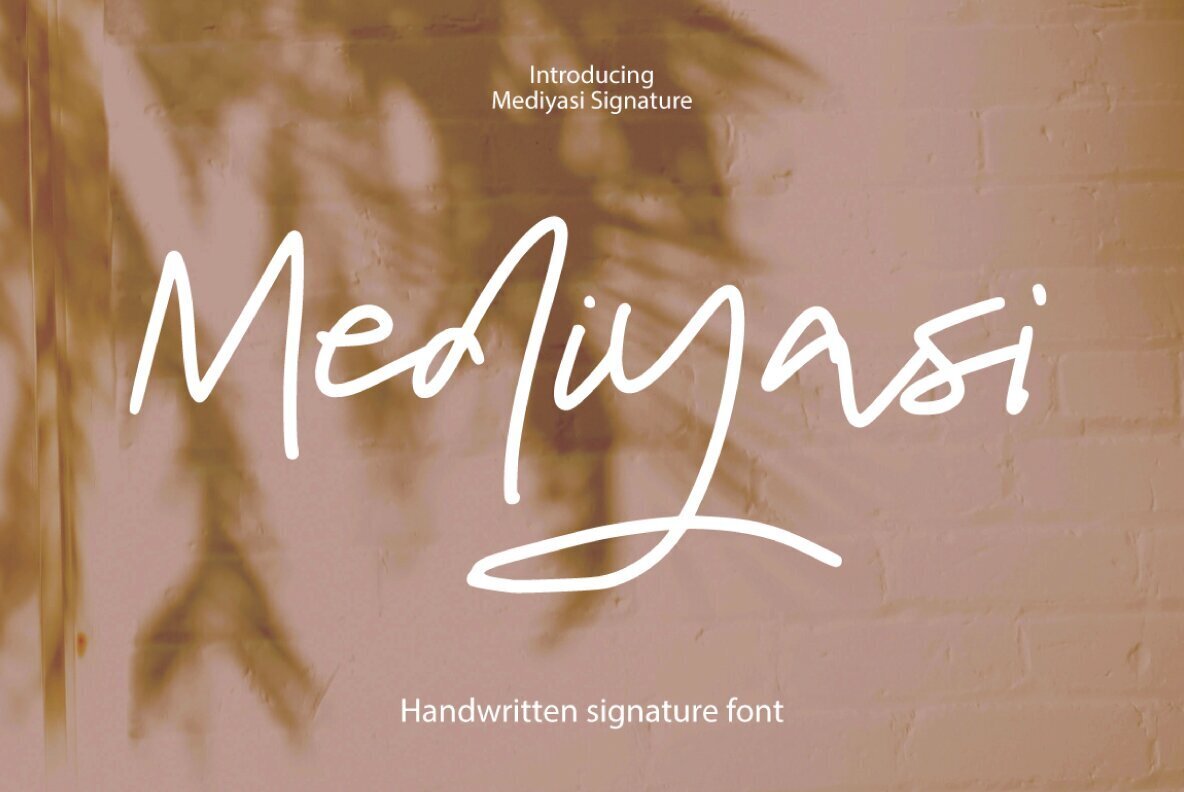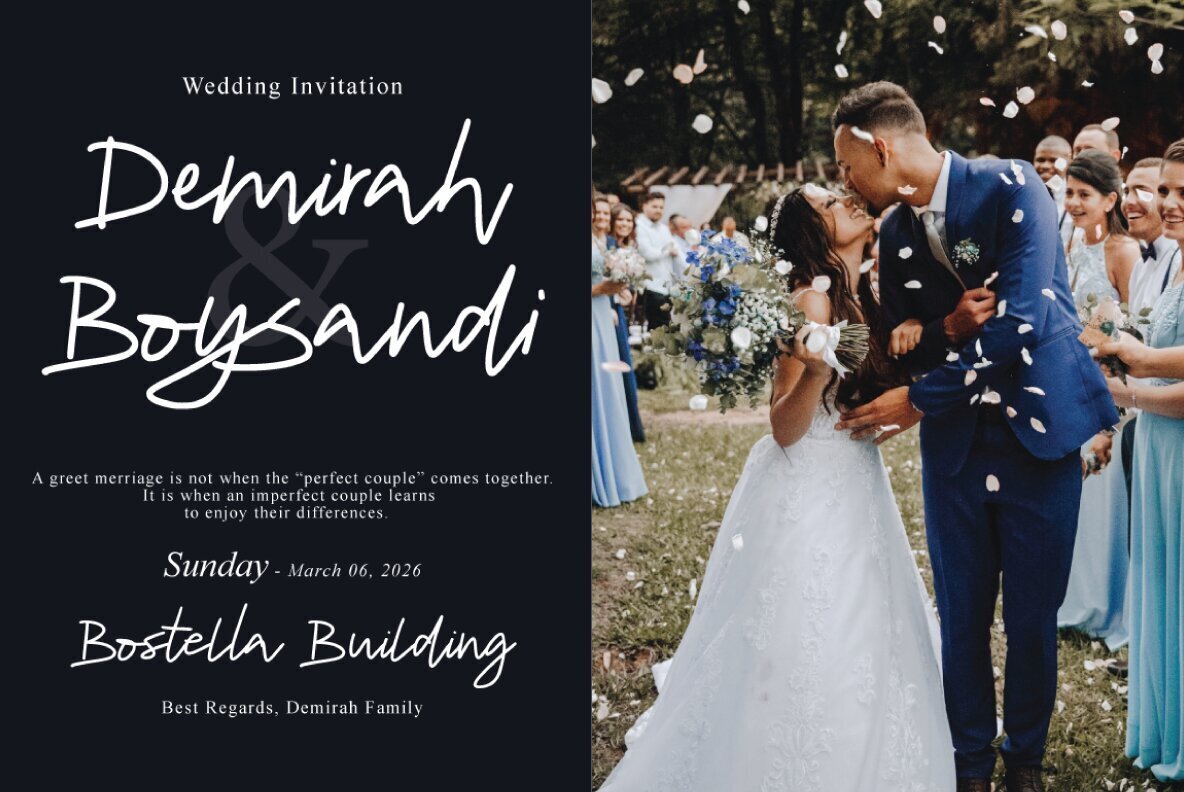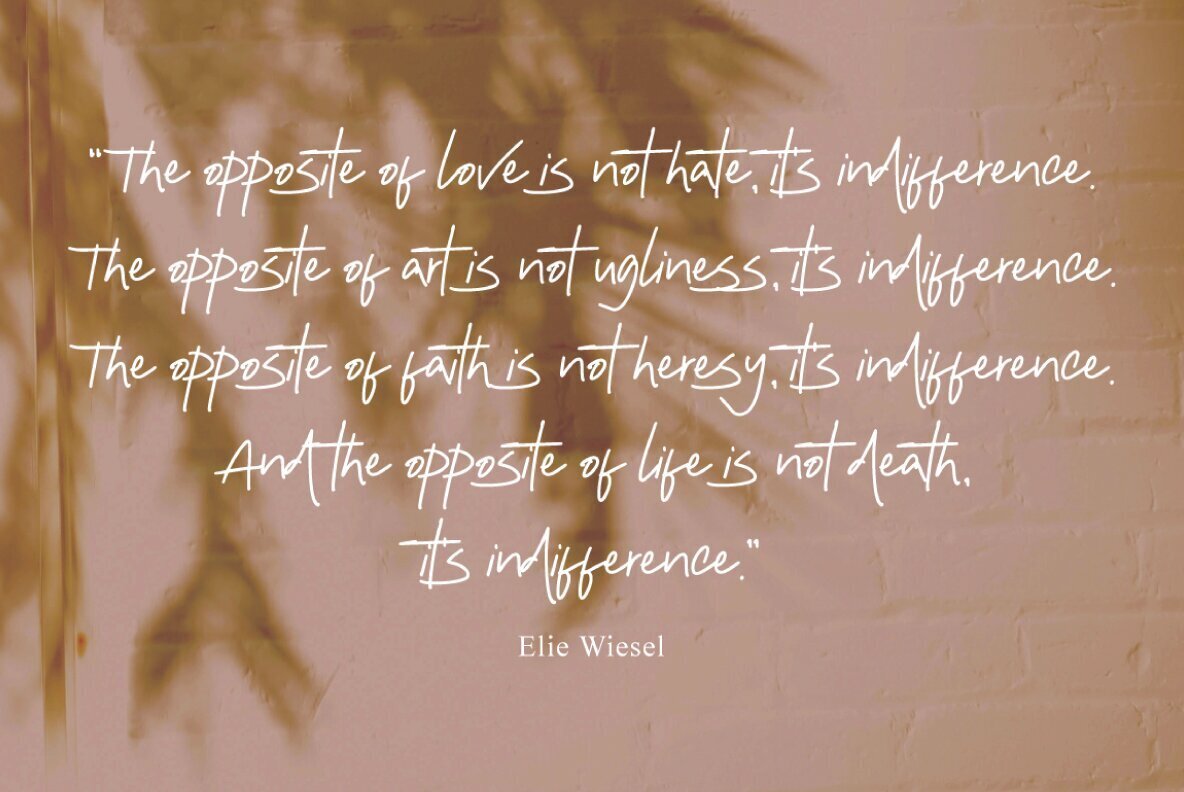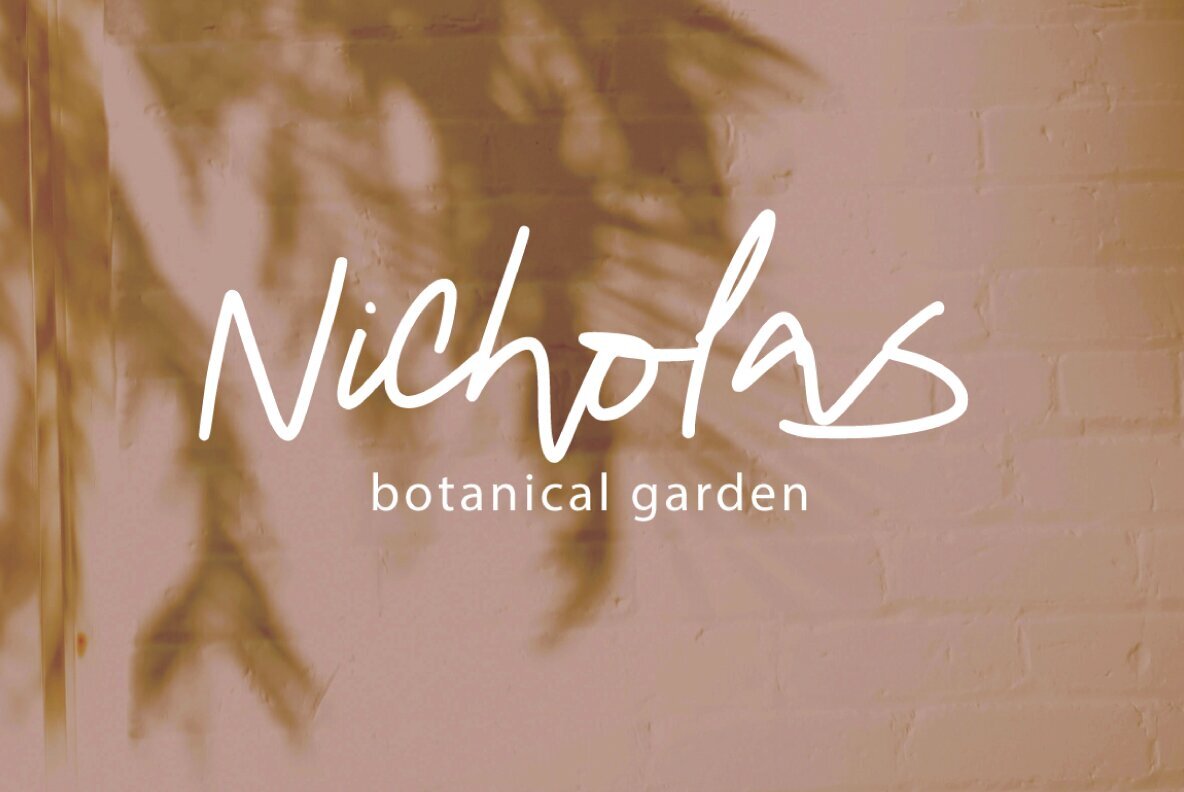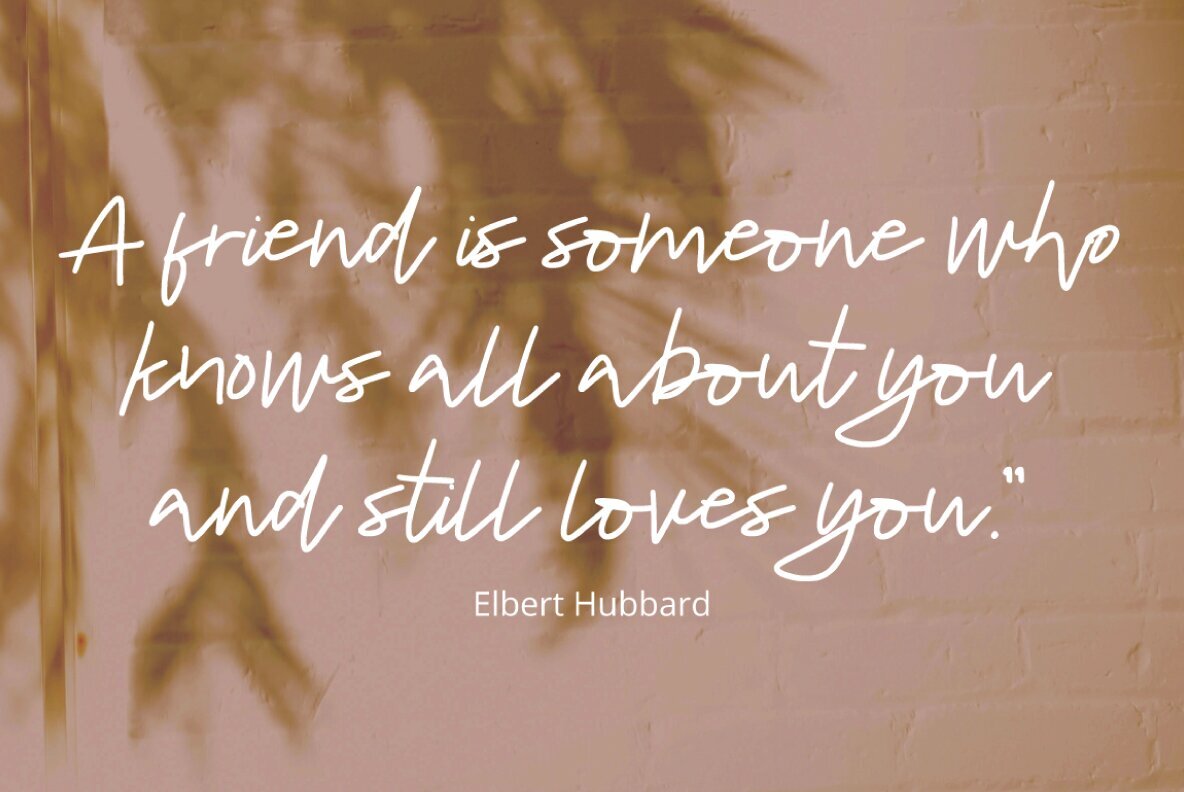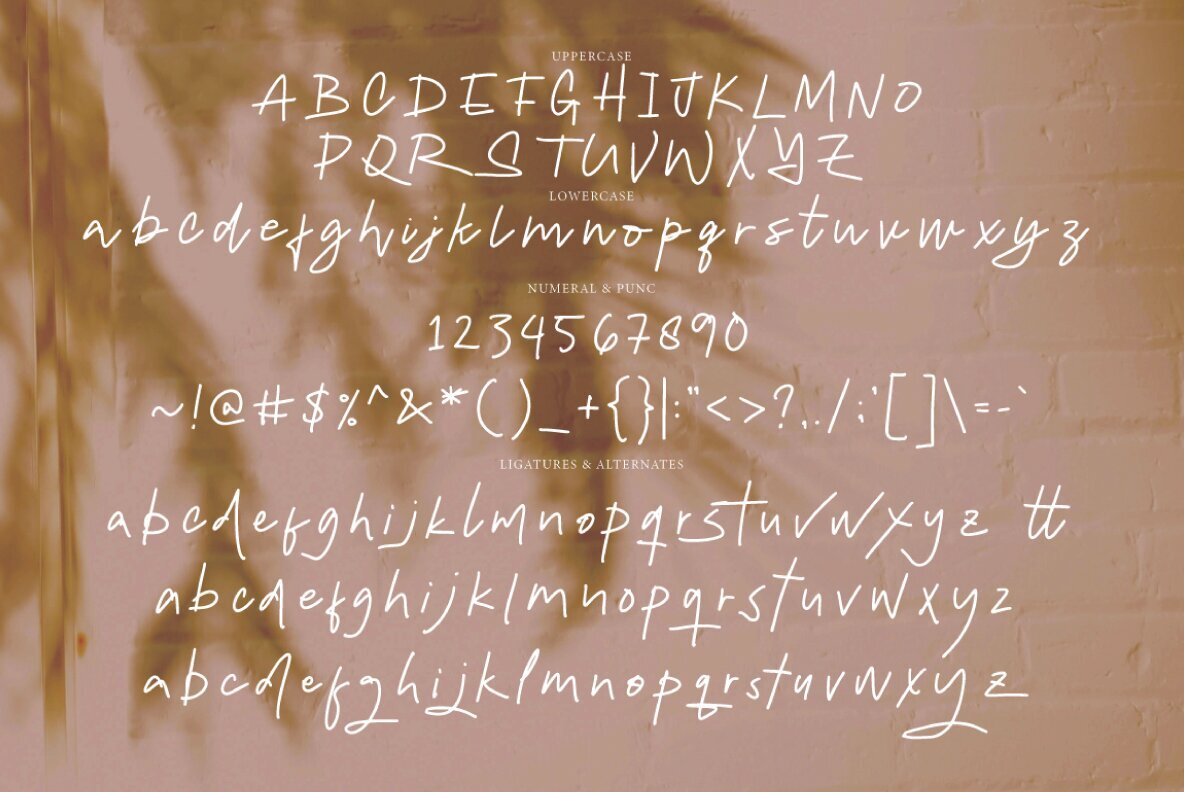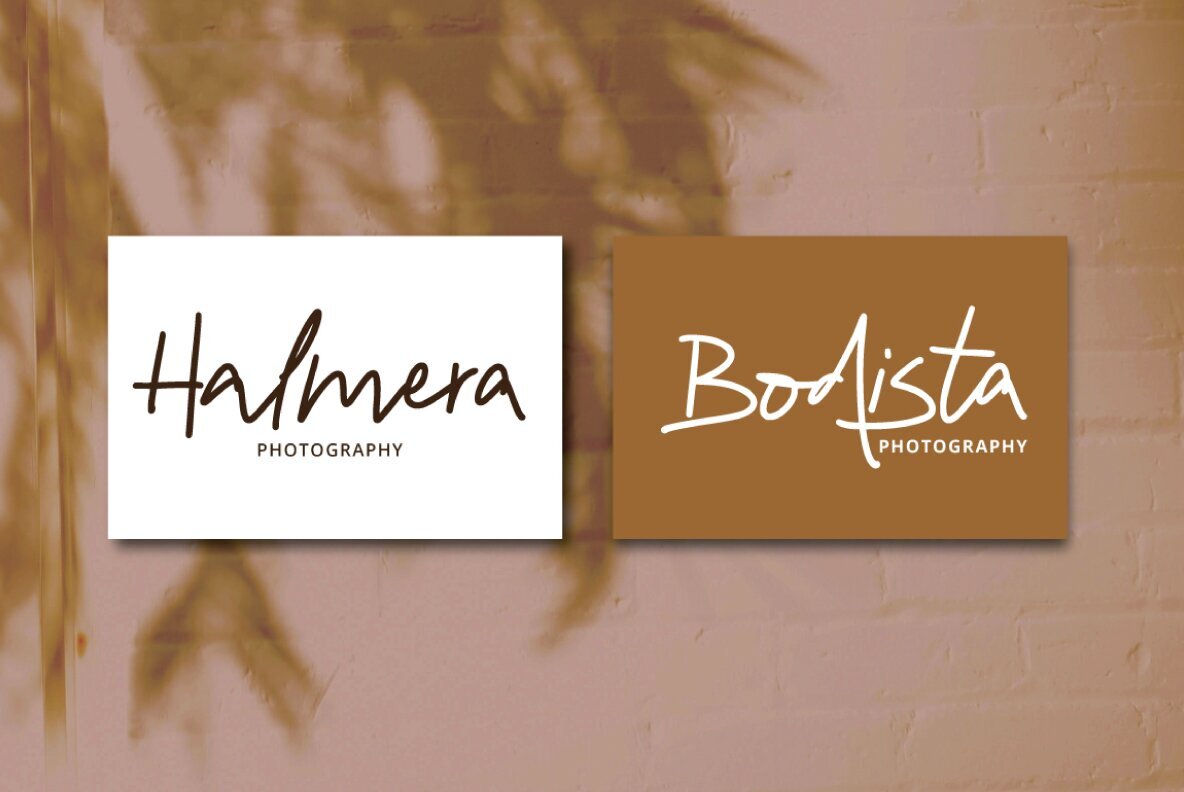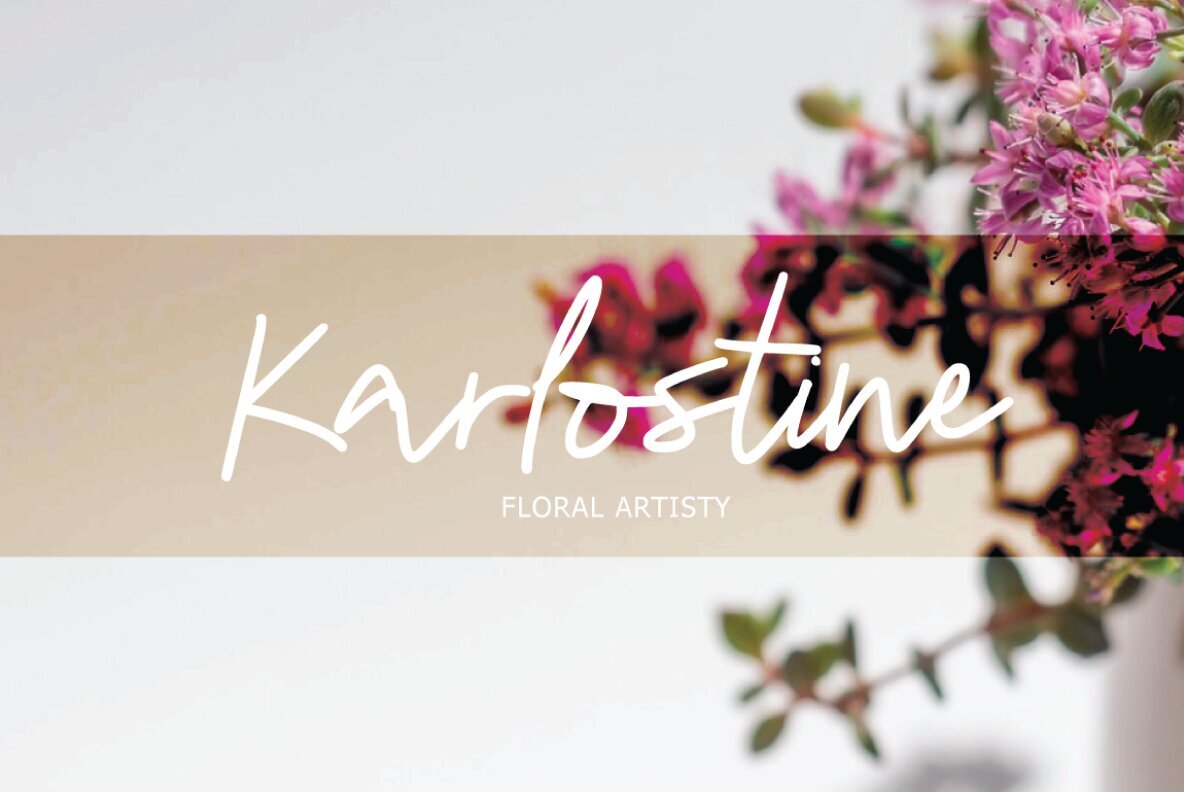
Mediyasi Signature Font
Mediyasi Signature Regular
Introducing Mediyasi Signature, a captivating handmade signature style font from Executype Studio. Perfect for adding a touch of elegance to greeting cards, branding projects, business cards, quotes, and posters, this font features over 200 glyphs, offering multiple creative possibilities. Let your designs dance with decorative characters and a lively baseline! Whether you're using Adobe Illustrator, InDesign, Photoshop, Corel Draw, or Microsoft Word, Mediyasi Signature ensures a seamless design experience. For those without OpenType-supporting software, utilize Font Book on Mac or Character Map on Windows to access alternate glyphs. Enhance your projects with this versatile font choice today!Mediyasi Signature Typeface